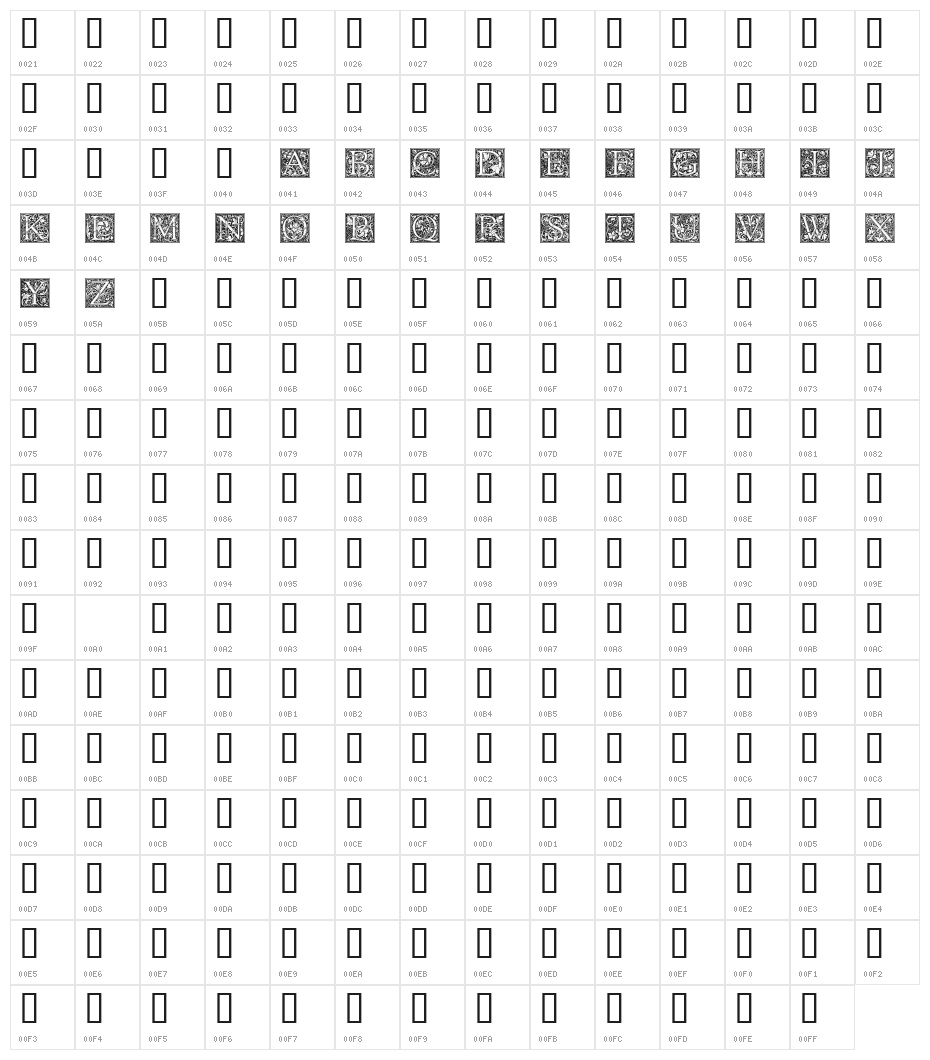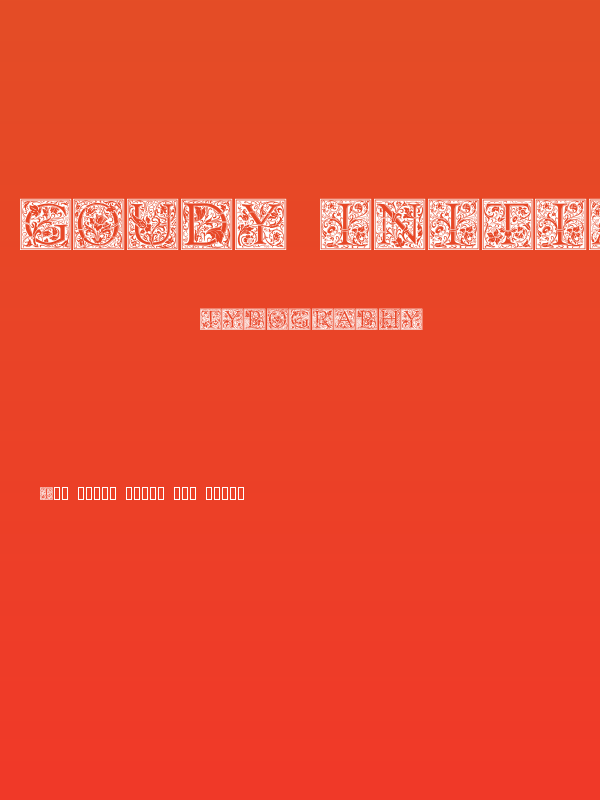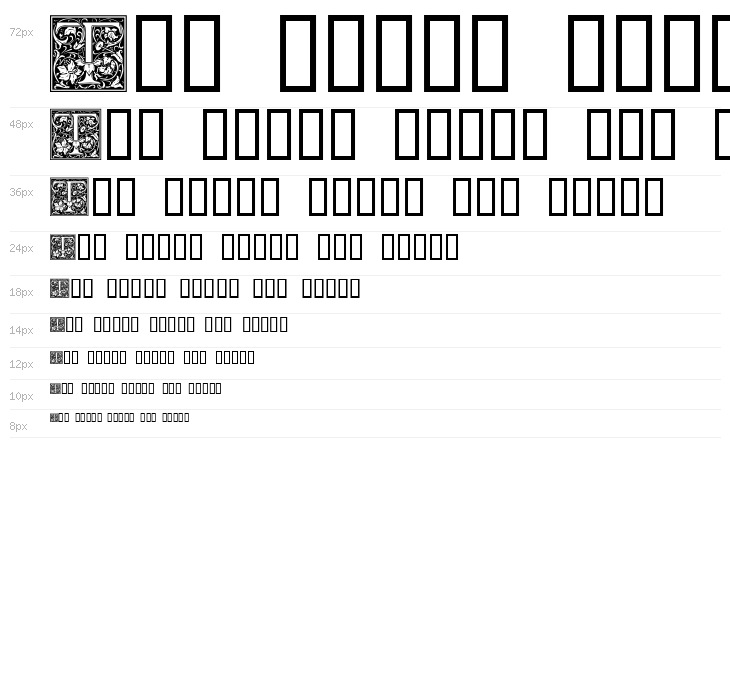
Goudy Initialen Font
Goudy Initialen Description
This font is a decorative and ornate typeface featuring intricate floral and vine patterns within each letter. The uppercase letters are enclosed in square frames, adding a sense of formality and elegance. The design is reminiscent of illuminated manuscripts, with each character appearing as a work of art. The detailed embellishments make it suitable for projects that require a touch of sophistication and historical charm. The font's intricate design suggests a focus on aesthetics over readability, making it ideal for decorative purposes.
| Use Case | Logos, Headlines, Decorative elements |
| Proposed Projects | Ideal for wedding invitations, historical themed projects, book covers, and decorative headings. |